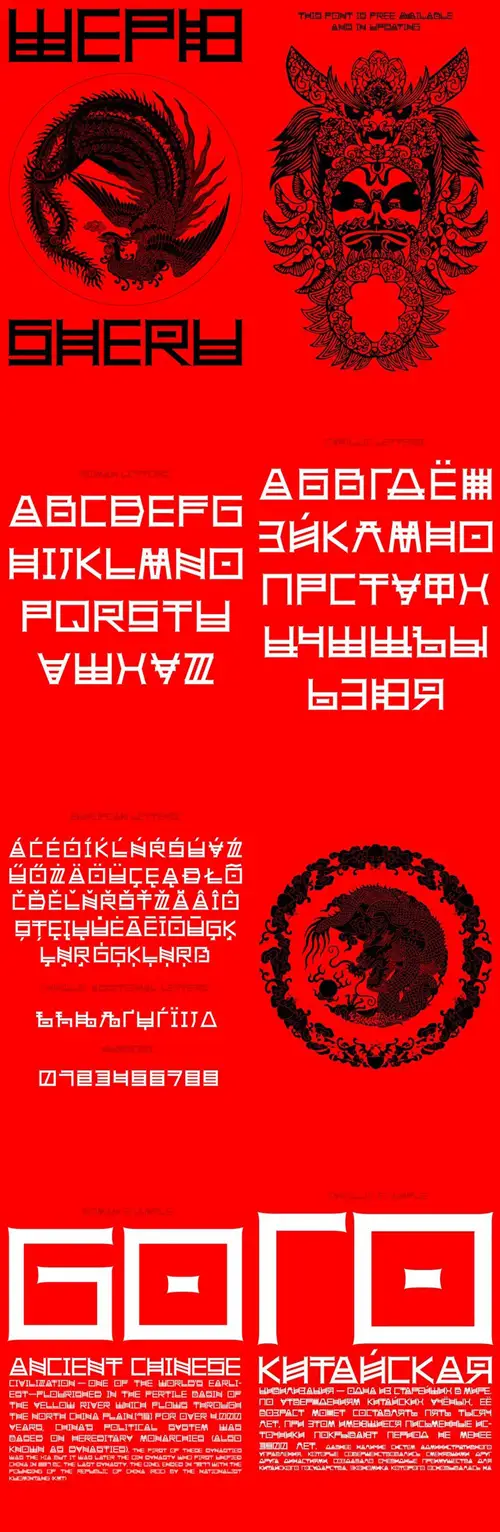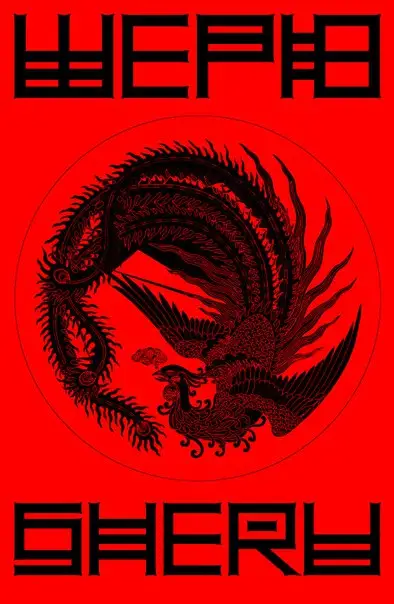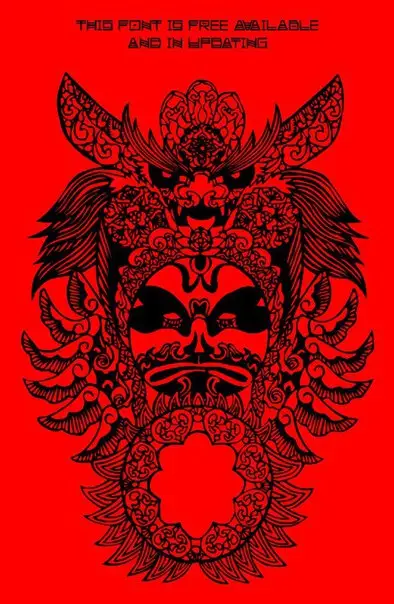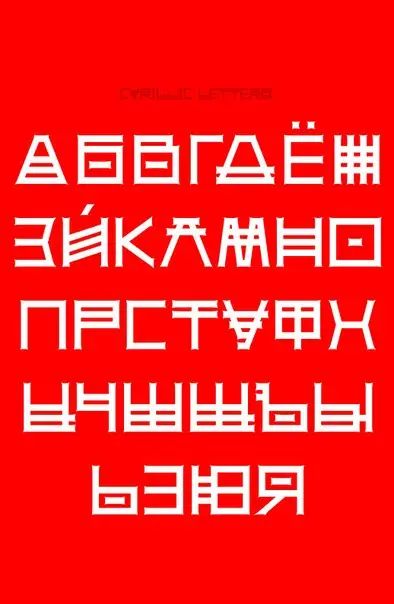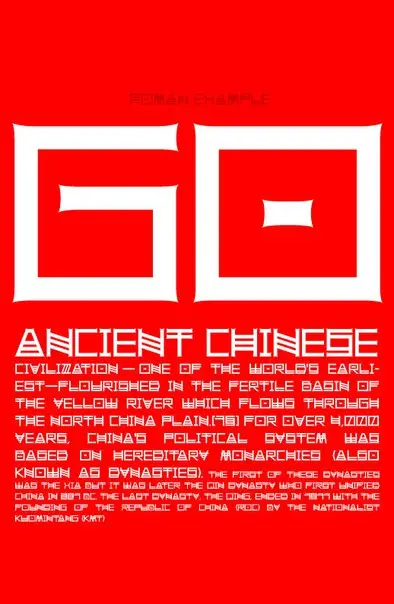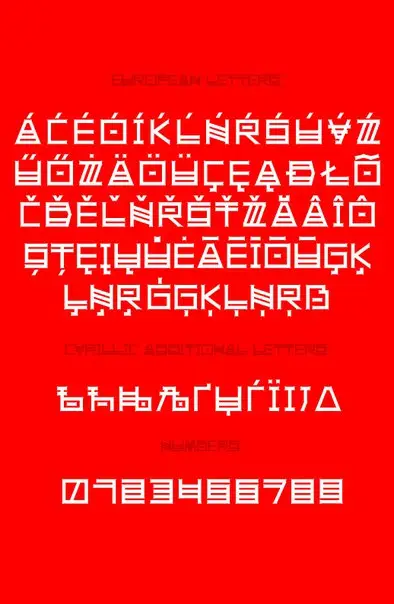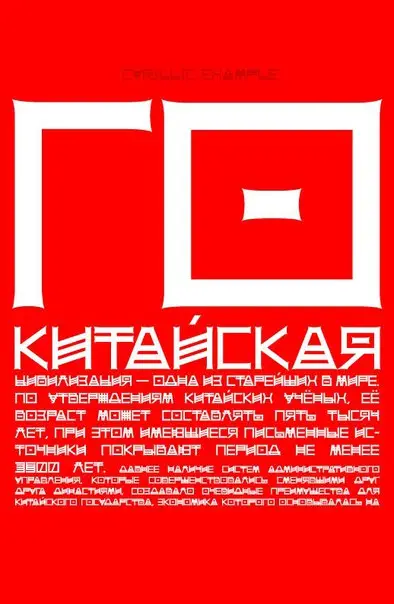
Sherupro Font
The Sherupro Font is a modern typeface designed to bring a unique touch to your projects. With its clean lines and contemporary aesthetic, this font is perfect for a variety of applications, from branding and logos to web design and print materials.
• Stylish and modern design